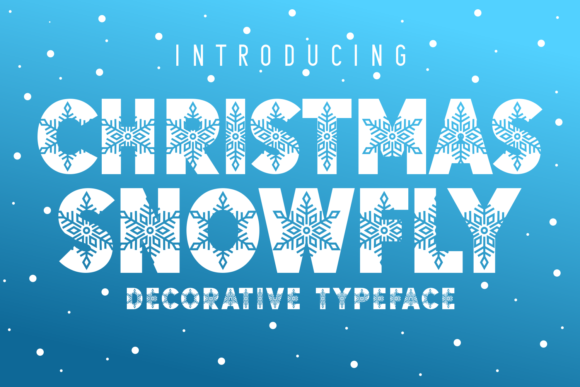
Introducing Christmas Snowfly Font: The Perfect Winter Wonderland Addition
As the winter season approaches, designers and crafters are on the lookout for unique and festive elements to add to their projects. If you’re looking for a font that embodies the playfulness and authenticity of the holiday season, look no further than Christmas Snowfly Font. This wintery, thick lettered, and uniquely designed decorative font is the perfect choice for any children’s activity or school project.
What is Christmas Snowfly Font?
Christmas Snowfly Font is a specially designed font that captures the essence of the winter season. Its thick, bold letters and unique design make it stand out from other fonts, perfect for adding a touch of whimsy and fun to any project. Whether you’re creating holiday cards, decorations, or educational materials, Christmas Snowfly Font is sure to delight.
Key Features of Christmas Snowfly Font
- Wintery Design: Christmas Snowfly Font features a wintery design that evokes the feeling of snow and ice. Its unique letters and decorations are perfect for adding a touch of the season to your projects.
- Thick Lettered: The font’s thick letters make it easy to read and perfect for use in titles, headings, and other decorative elements.
- Playful and Authentic: Christmas Snowfly Font embodies the playfulness and authenticity of the holiday season, making it perfect for children’s activities and school projects.
- Decorative: The font’s decorative design makes it perfect for use in a variety of projects, from holiday cards and decorations to educational materials and crafts.
Uses for Christmas Snowfly Font
Christmas Snowfly Font is a versatile font that can be used in a variety of projects, including:
- Holiday Cards and Decorations: Add a touch of whimsy and fun to your holiday cards and decorations with Christmas Snowfly Font.
- Children’s Activities and School Projects: The font’s playful and authentic design makes it perfect for use in children’s activities and school projects, such as holiday-themed worksheets, coloring pages, and crafts.
- Crafts and DIY Projects: Use Christmas Snowfly Font to add a personal touch to your crafts and DIY projects, such as holiday-themed signs, banners, and decorations.
Tips for Using Christmas Snowfly Font
Here are a few tips for using Christmas Snowfly Font in your projects:
- Use it as a Title Font: Christmas Snowfly Font is perfect for use as a title font, adding a touch of whimsy and fun to your projects.
- Pair it with Other Fonts: Pair Christmas Snowfly Font with other fonts to create a unique and visually appealing design.
- Experiment with Colors: Experiment with different colors to find the perfect combination for your project.
Christmas Snowfly Font is a unique and festive font that’s perfect for adding a touch of whimsy and fun to your winter-themed projects. Its thick, bold letters and wintery design make it stand out from other fonts, making it perfect for use in holiday cards, decorations, children’s activities, and school projects. With its playful and authentic design, Christmas Snowfly Font is sure to delight designers and crafters of all skill levels.